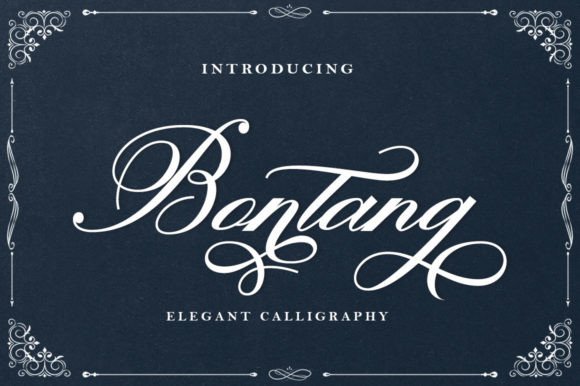
Bontang Font: Elevate Your Designs with Elegance and Sophistication
In the world of typography, a font can make or break a design. It’s the perfect blend of form and function, aesthetics and readability. For designers and crafters, finding the right font can be a daunting task. However, if you’re looking for a script font that exudes elegance and sophistication, look no further than Bontang Font. In this article, we’ll dive into the world of Bontang, exploring its features, benefits, and uses.
What is Bontang Font?
Bontang is a dazzling script font that has taken the design world by storm. This font is neatly crafted and highly detailed, making it a perfect addition to any font library. Whether you’re working on a branding project, a wedding invitation, or a packaging design, Bontang has the potential to enhance any creation. Its unique and flowing script style is sure to capture the attention of your audience and leave a lasting impression.
Key Features of Bontang Font
So, what makes Bontang Font stand out from the rest? Here are some of its key features:
- Unique Script Style: Bontang boasts a distinctive script style that’s both elegant and sophisticated. Its flowing lines and curves make it perfect for designs that require a touch of luxury and refinement.
- Highly Detailed: This font is meticulously crafted, with attention to detail that’s hard to find in other fonts. The result is a font that’s both beautiful and legible.
- Versatile: Bontang is a versatile font that can be used for a wide range of design projects. Whether you’re working on a logo, a brochure, or a website, this font is sure to impress.
- Easy to Read: Despite its ornate style, Bontang is surprisingly easy to read. This makes it perfect for designs that require a touch of elegance without sacrificing legibility.
Benefits of Using Bontang Font
So, why should you choose Bontang Font for your next design project? Here are just a few benefits:
- Elevate Your Designs: Bontang has the power to elevate your designs from ordinary to extraordinary. Its unique script style and highly detailed craftsmanship make it a standout font that’s sure to impress.
- Stand Out from the Crowd: In a world where designs are constantly competing for attention, Bontang can help you stand out from the crowd. Its distinctive style and elegance make it a font that’s sure to capture the attention of your audience.
Who Can Benefit from Bontang Font?
Bontang Font is perfect for a wide range of designers and crafters, including:
- Graphic Designers: Whether you’re working on a branding project or a marketing campaign, Bontang is a great addition to your font library.
- Wedding Planners: If you’re planning a wedding, Bontang is a beautiful font to use for invitations, programs, and other wedding materials.
- Packaging Designers: Bontang can add a touch of luxury and sophistication to your packaging designs, making your products stand out on store shelves.
- Crafters: Whether you’re creating handmade cards, gift tags, or other crafts, Bontang is a beautiful font to use for adding a personal touch.
In conclusion, Bontang Font is a stunning script font that’s sure to elevate your designs to the next level. Its unique style, highly detailed craftsmanship, and versatility make it a perfect addition to any font library. Whether you’re a graphic designer, a wedding planner, or a crafter, Bontang is a great choice for adding a touch of elegance and sophistication to your creations. So why wait? Download Bontang Font today and start creating beautiful designs that will leave a lasting impression.